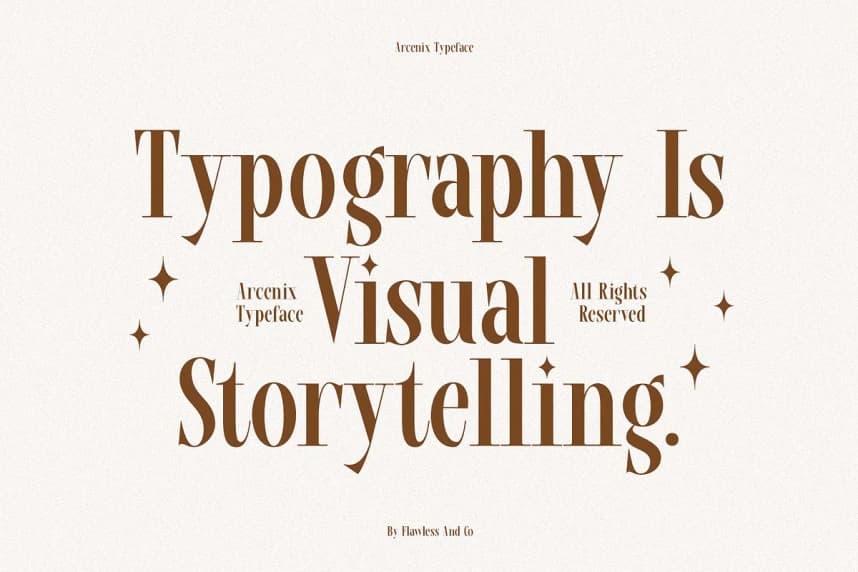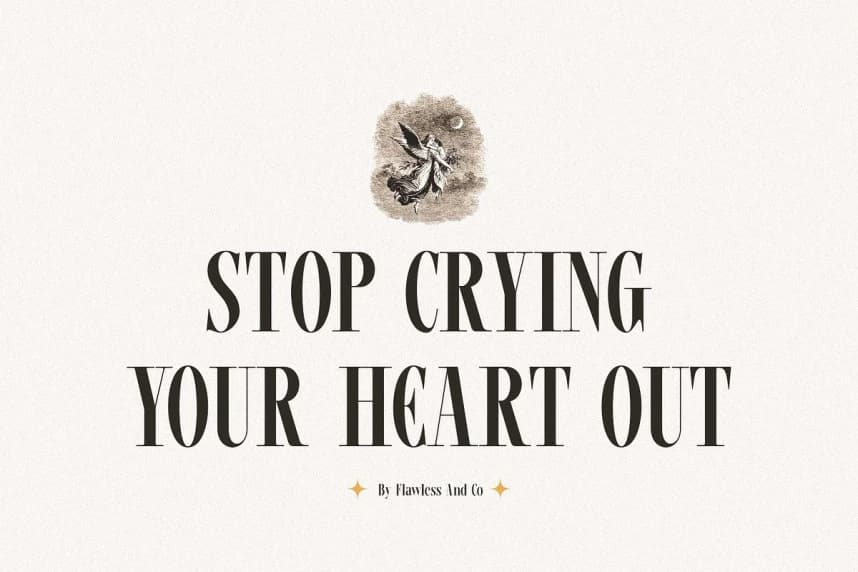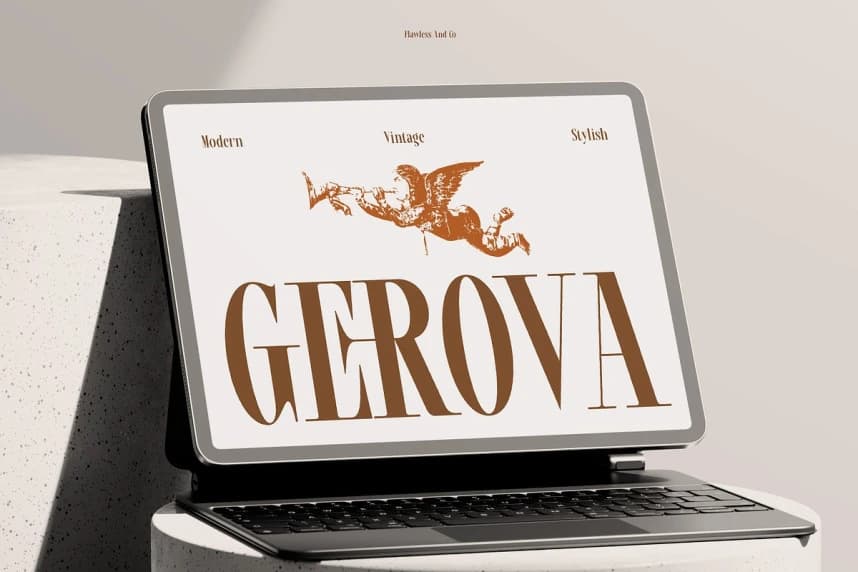
Arcenix Font
Arcenix Font is a modern condensed serif display typeface crafted to deliver elegance, precision, and strong visual impact. With its tall, narrow letterforms and refined serif details, Arcenix creates a sophisticated vertical flow that feels both classic and contemporary.